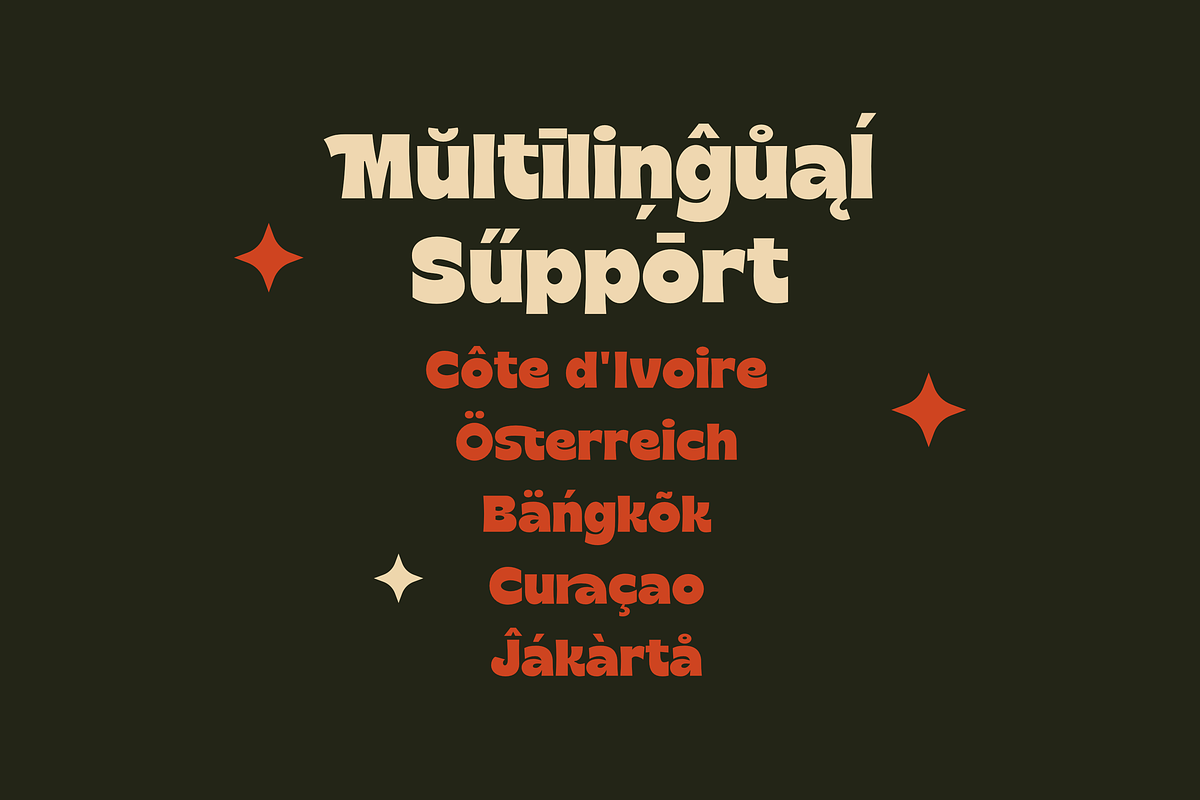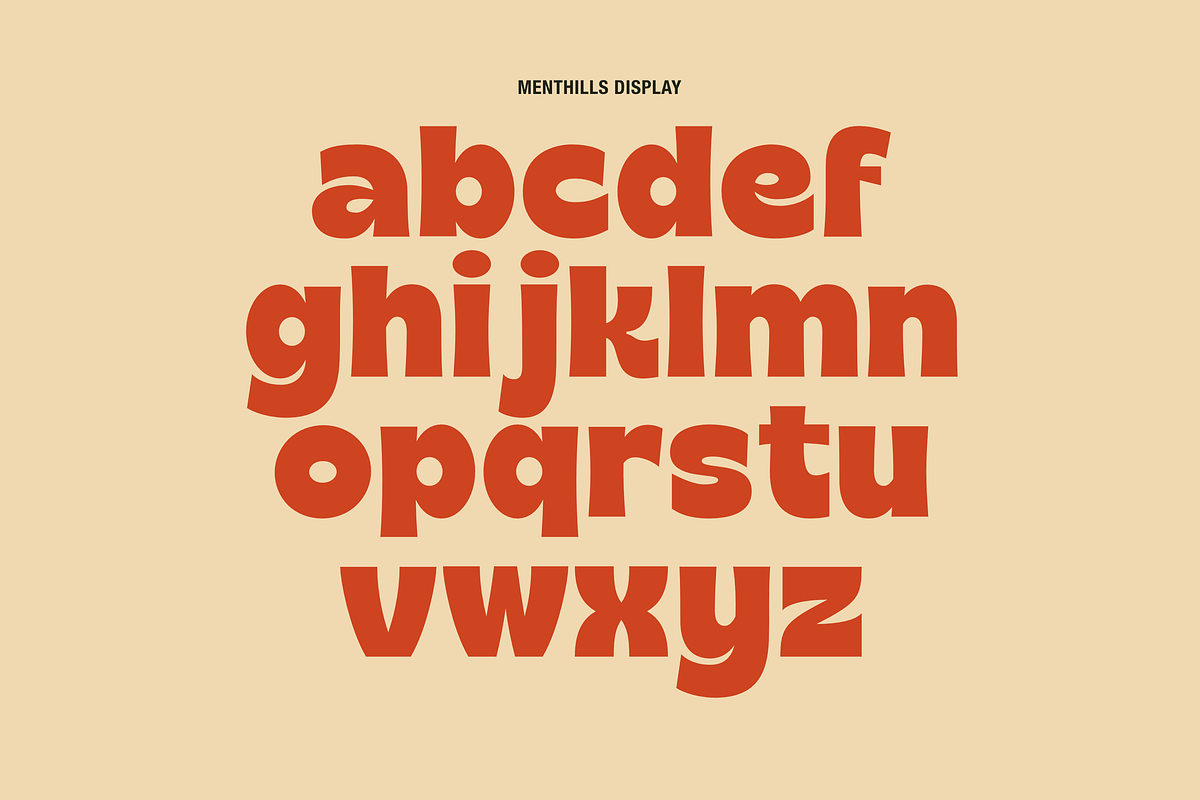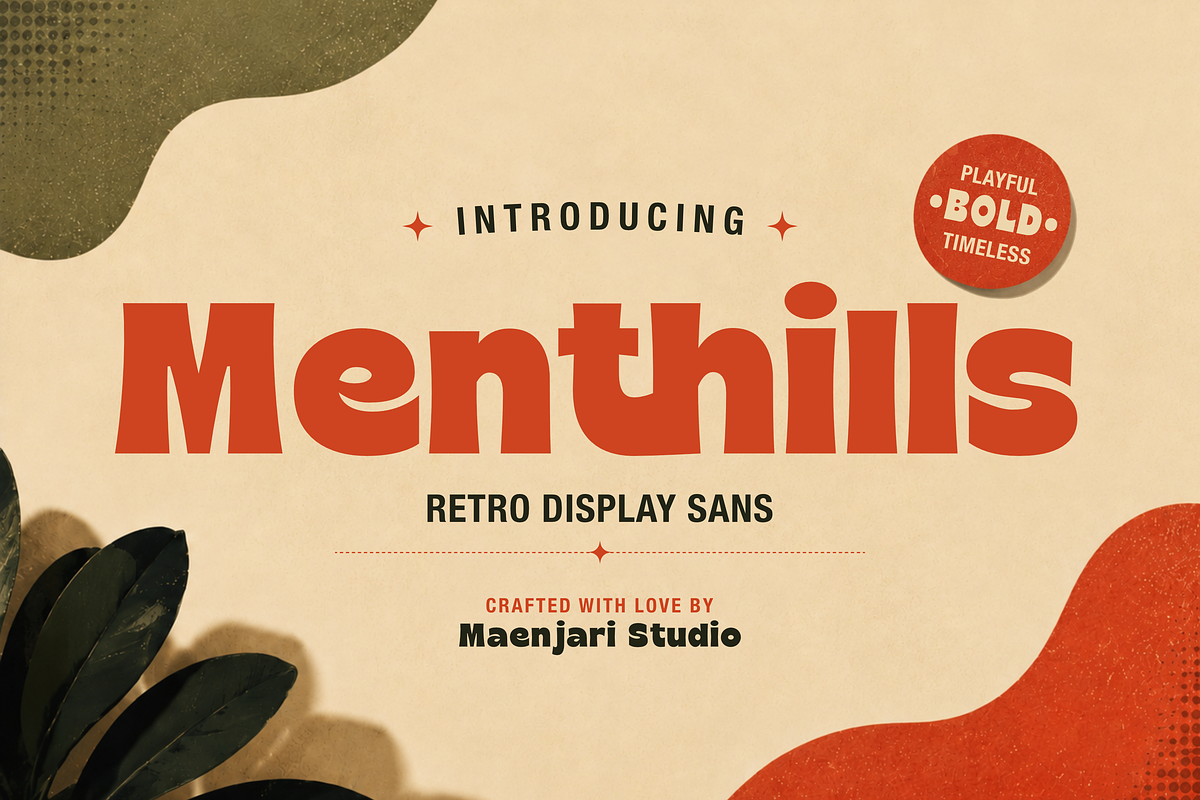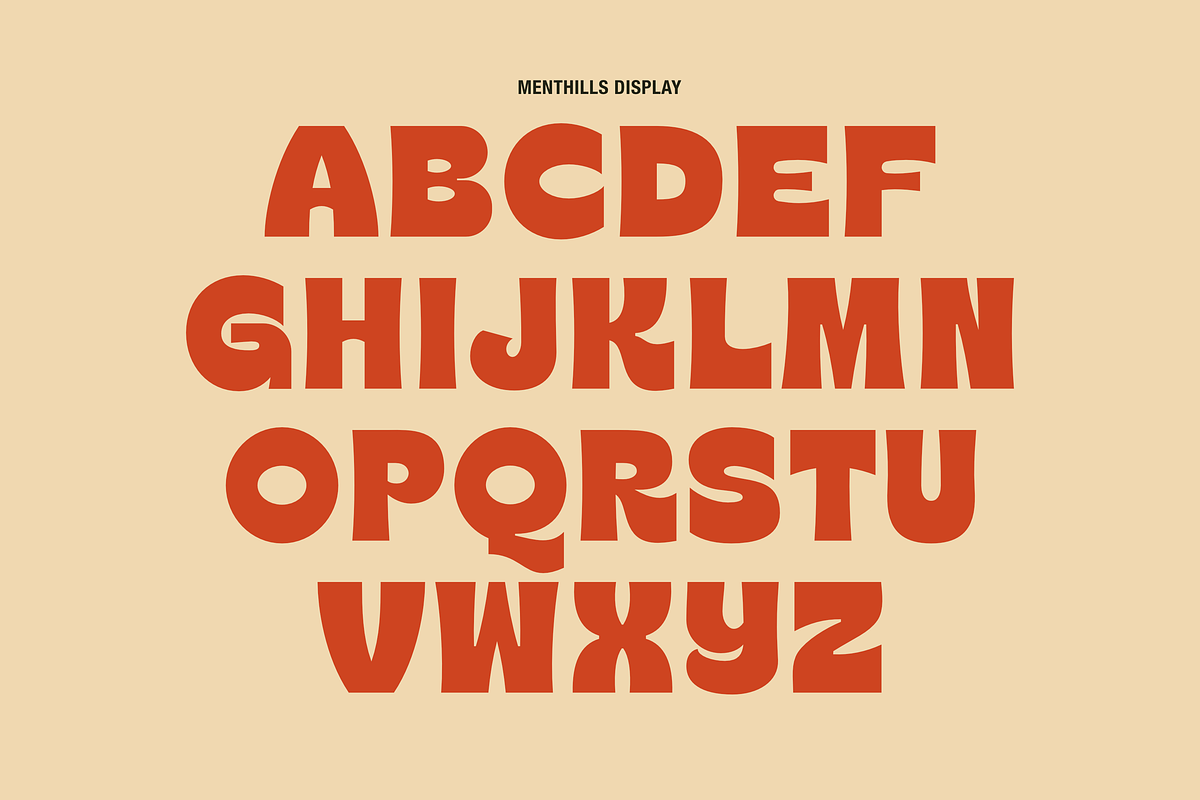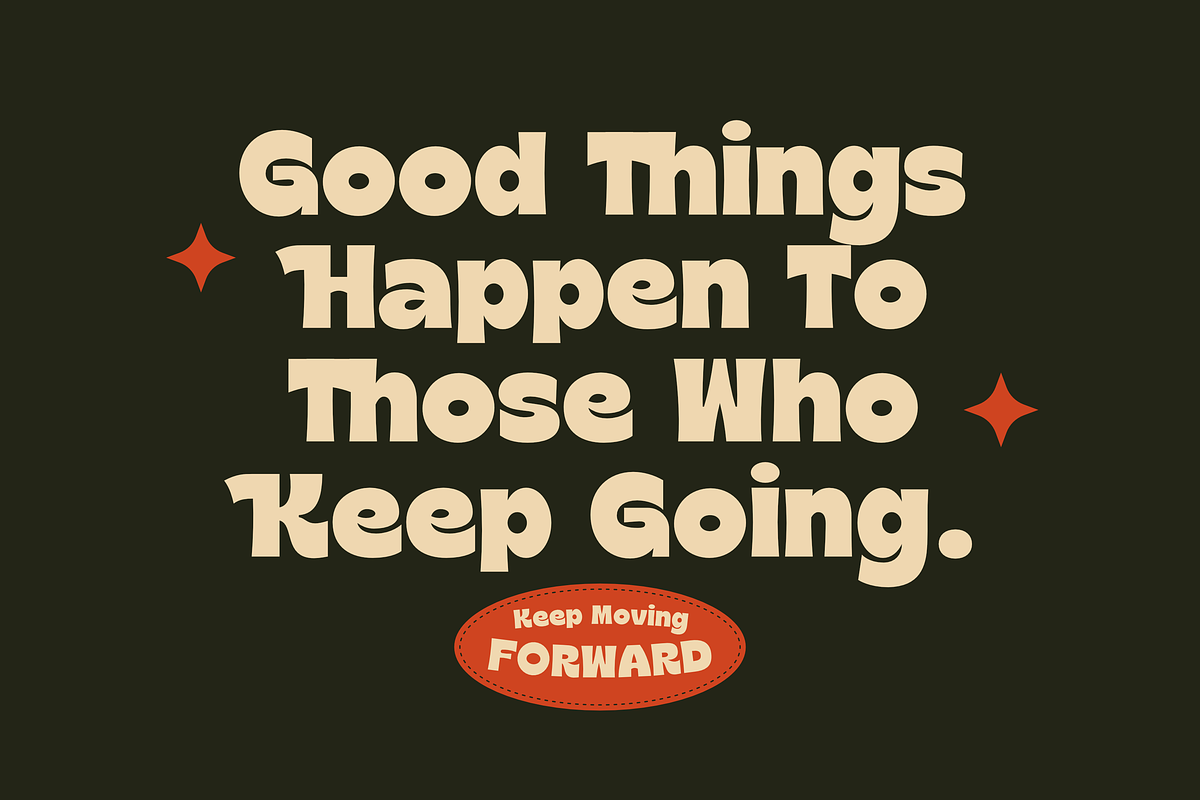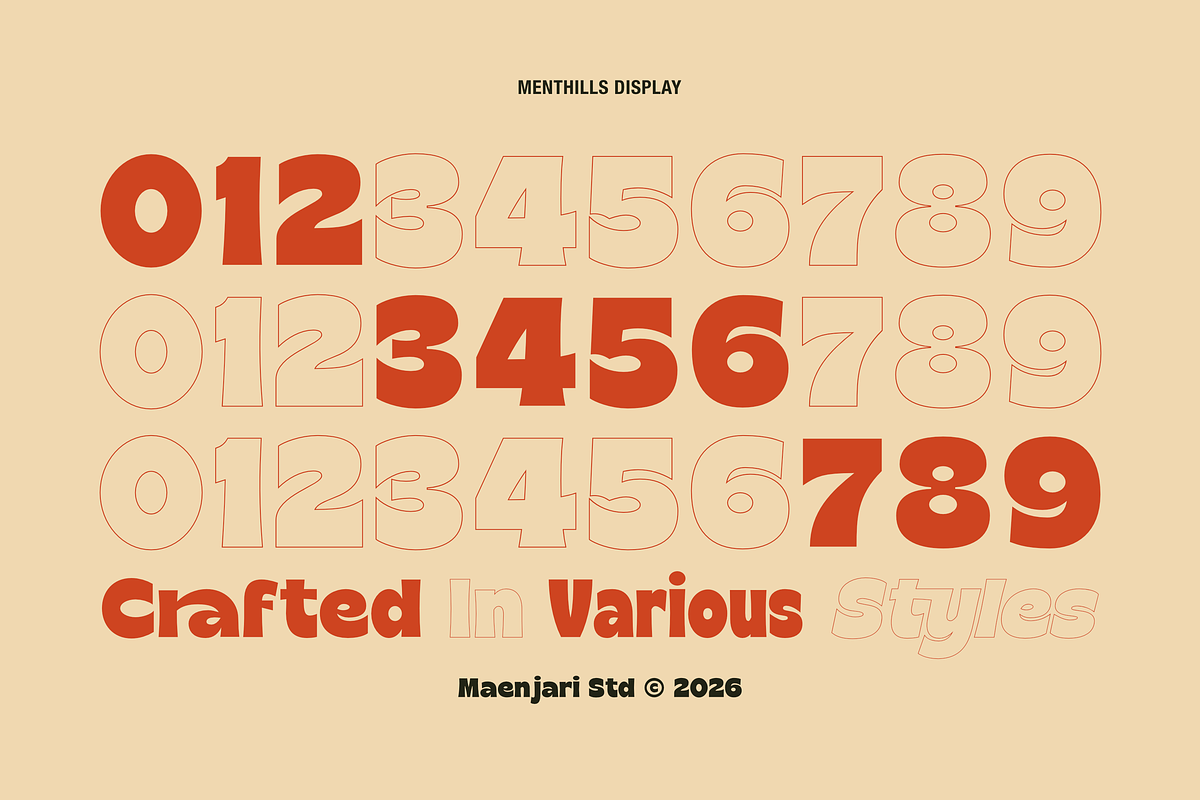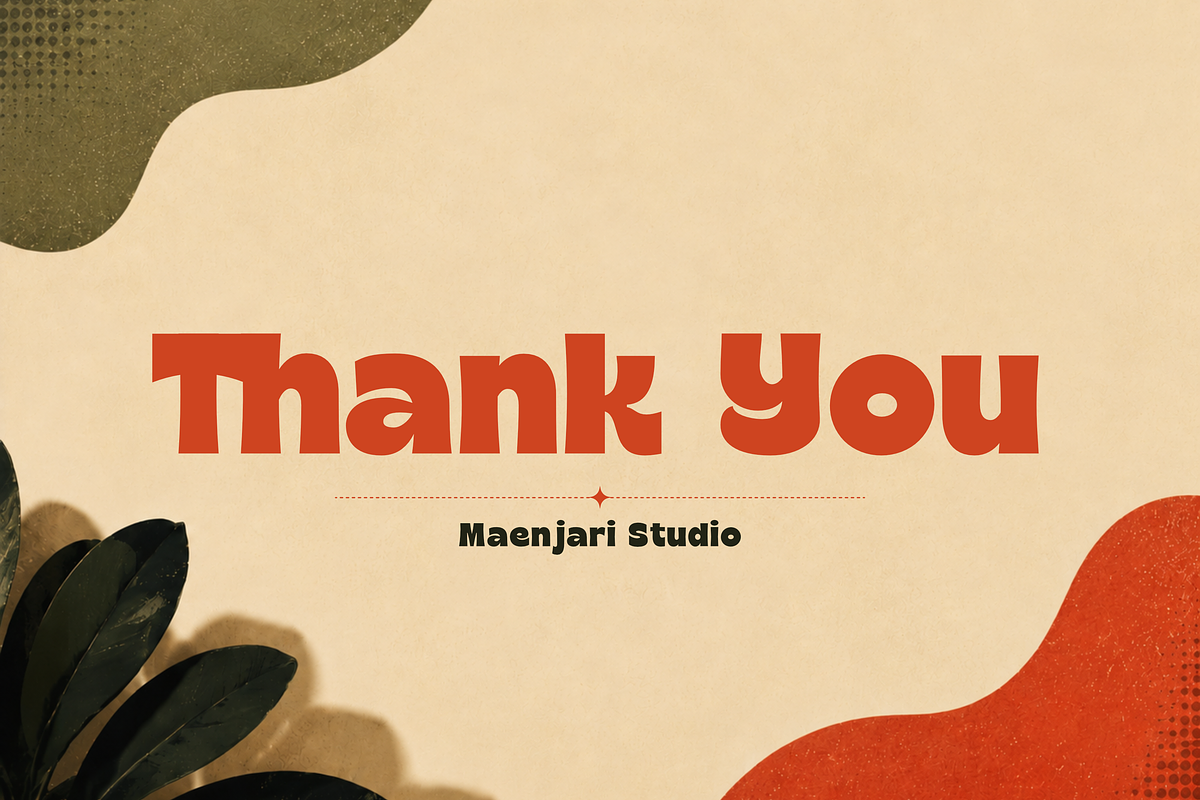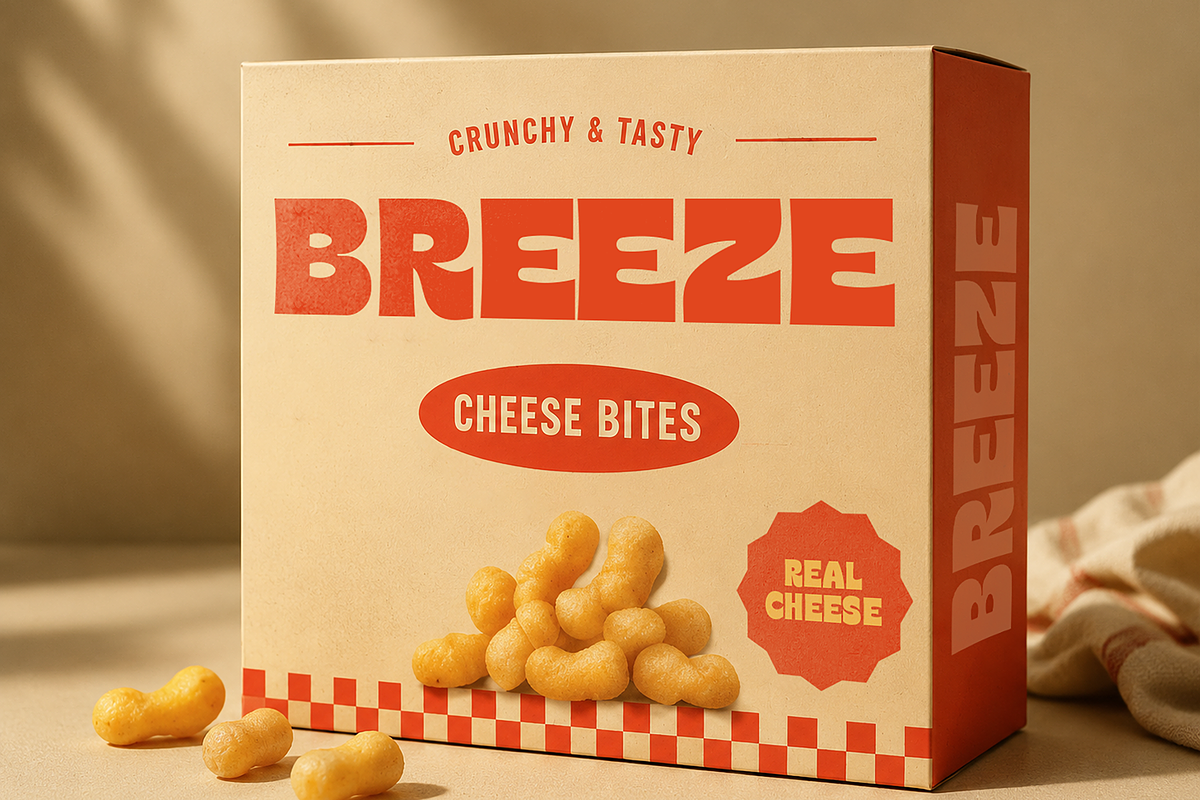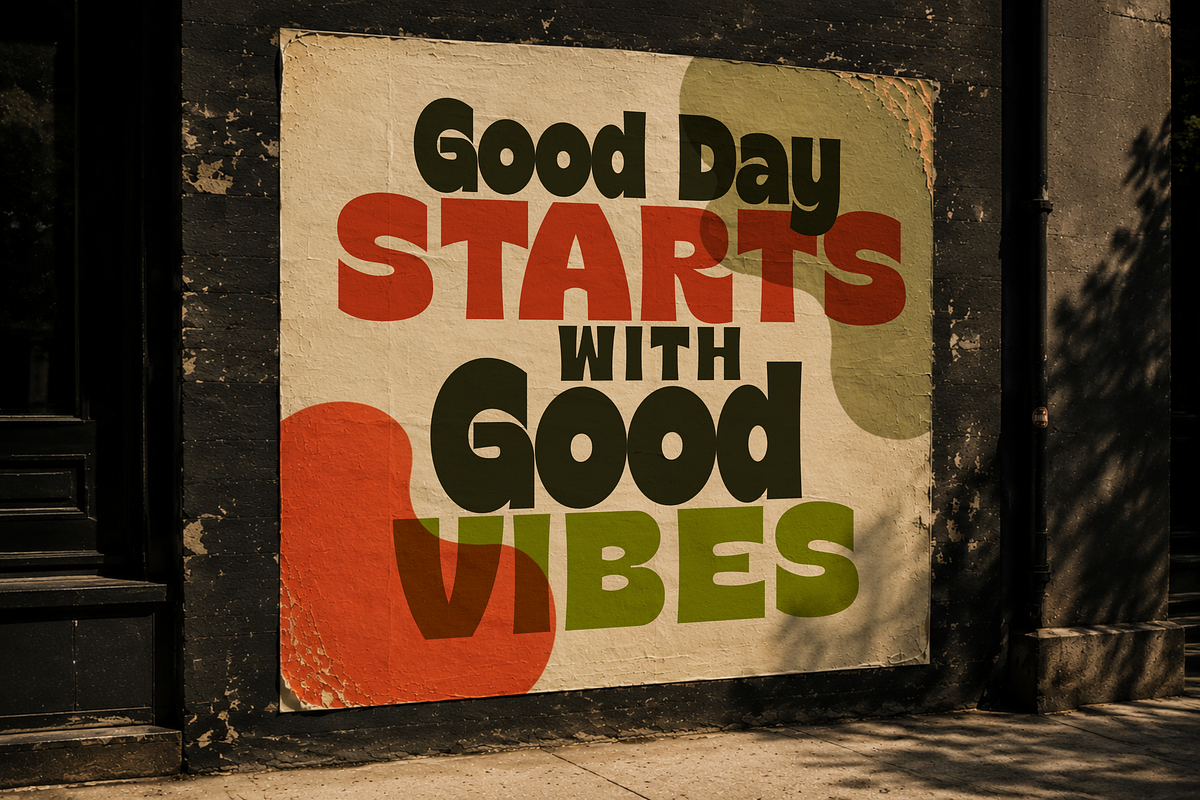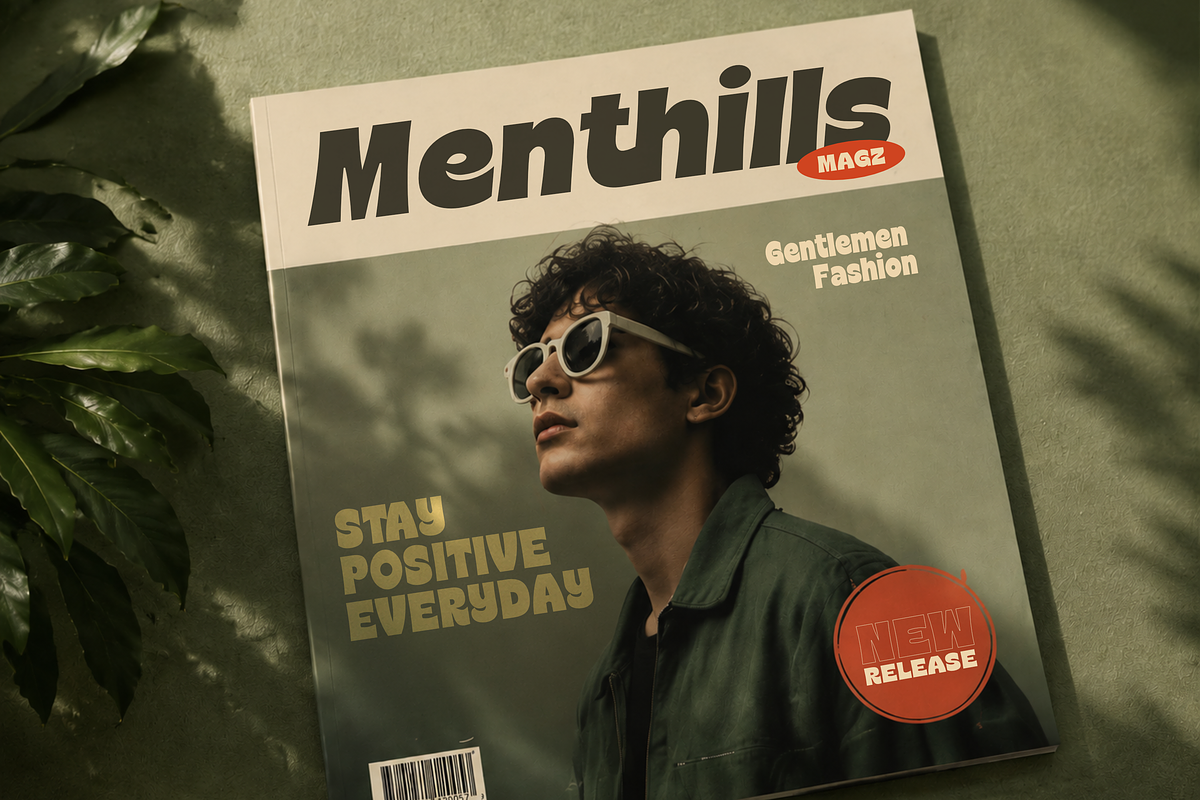
Menthills - Retro Display Sans
Step back in time with Menthills, a bold display sans-serif font that channels vintage warmth and nostalgic charm. Inspired by classic seventies typography and mid-century editorial design, Menthills features heavy, expressive letterforms balanced with smooth, organic curves.
This family is equipped with 6 distinct styles to expand your design options: Regular, Italic, Condensed, Regular Outline, Italic Outline, and Condensed Outline. By pairing the solid weights with their outline counterparts, you can build cohesive visual hierarchies for editorial layouts, retro branding, and merchandise.
Whether you are designing a vintage magazine cover, retro food packaging, apparel graphics, or street-style poster art, Menthills provides a distinct and sturdy foundation. It also includes full multilingual support to accommodate diverse design requirements.
6 Versatile Styles (Regular, Italic, Condensed, and Outlines)
Full Uppercase & Lowercase Character Set
Comprehensive Numbers & Punctuation
Multilingual Support for global projects
Optimized for headlines, packaging, and logos